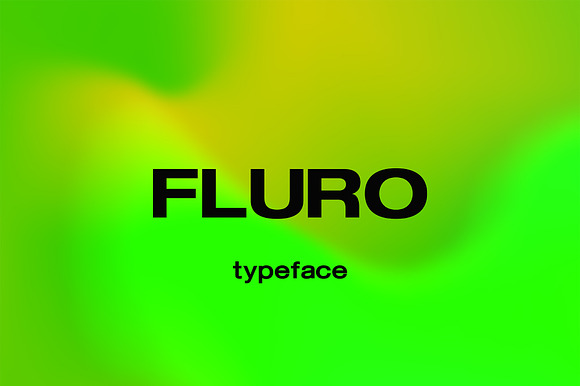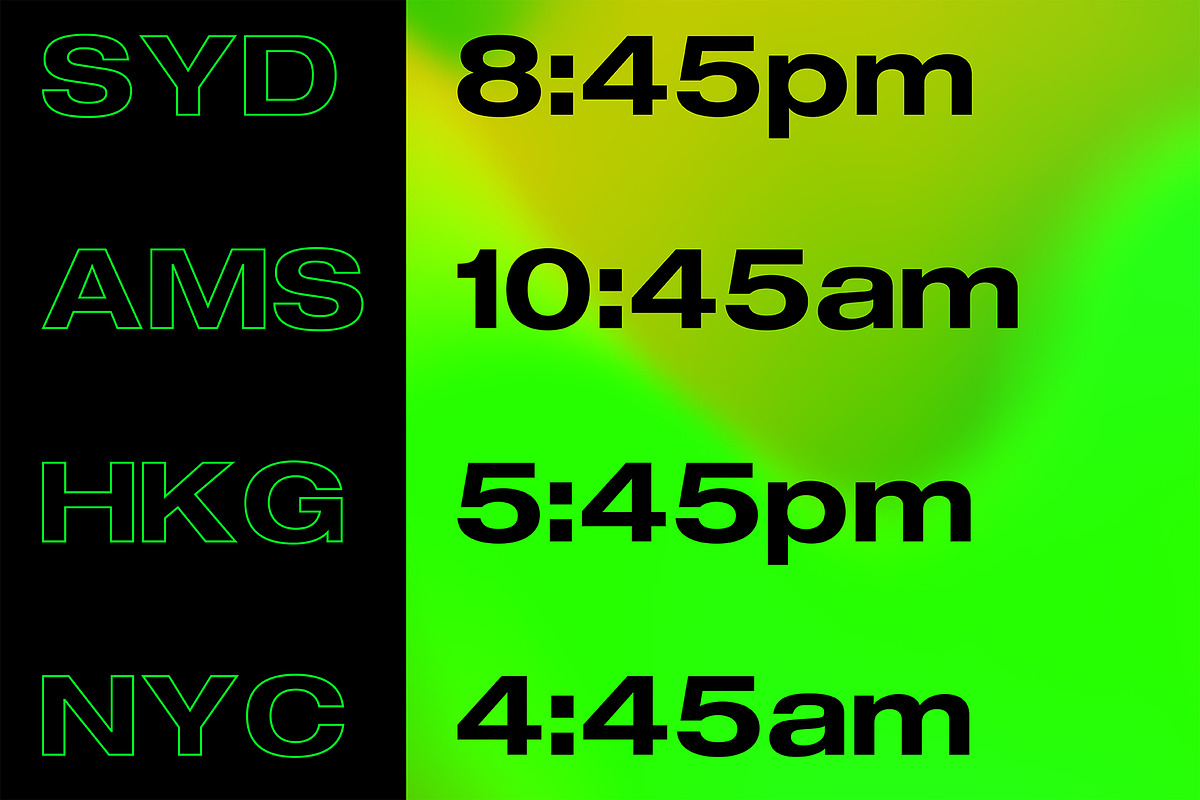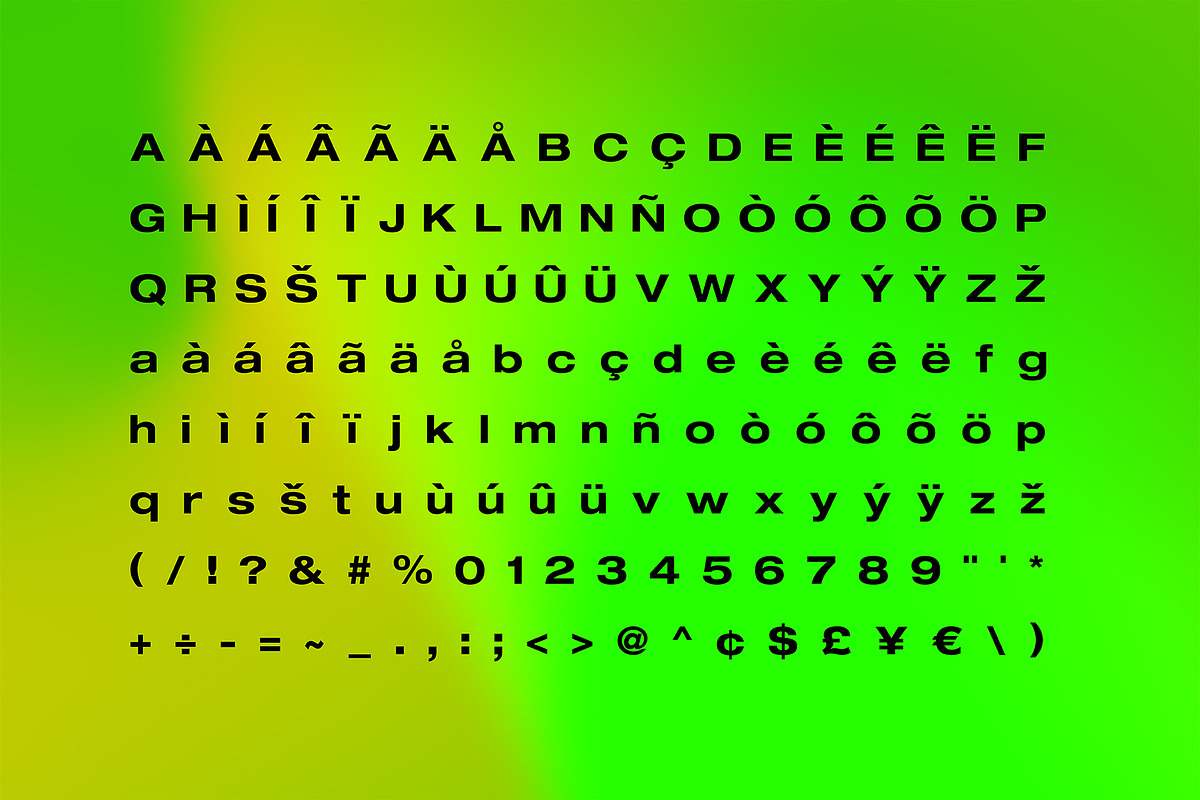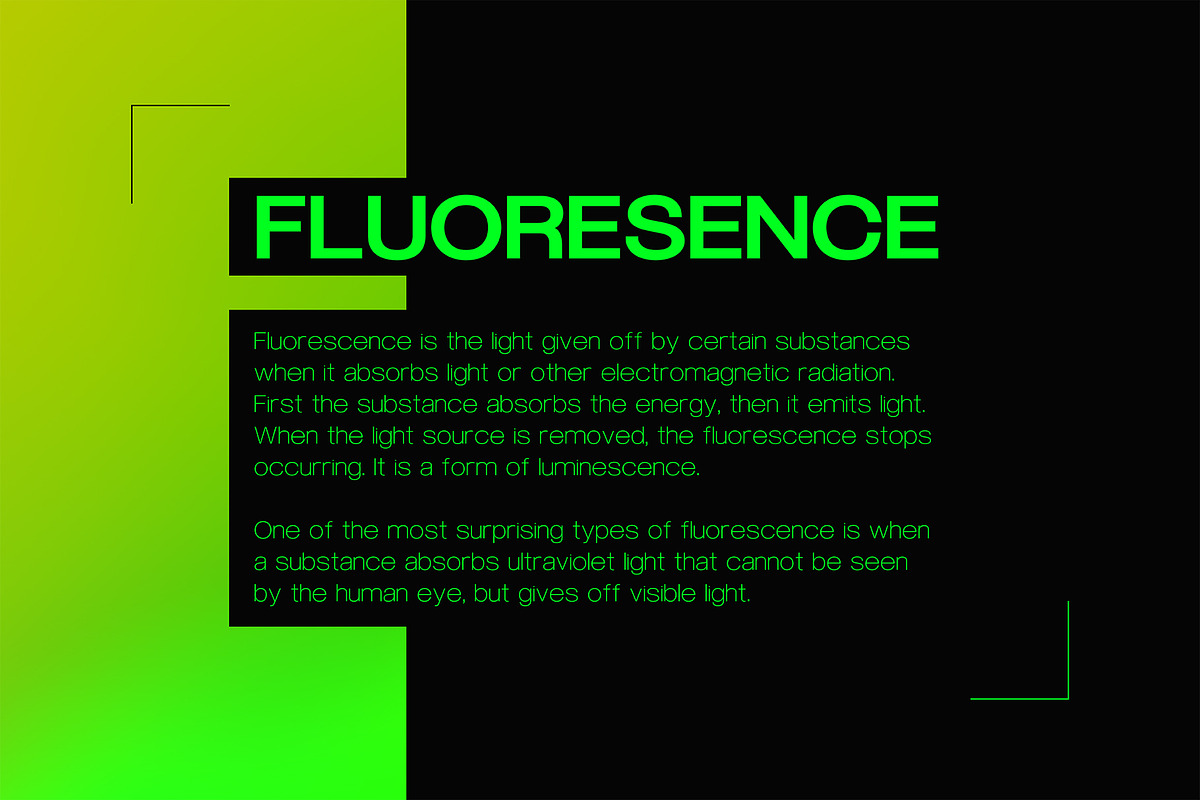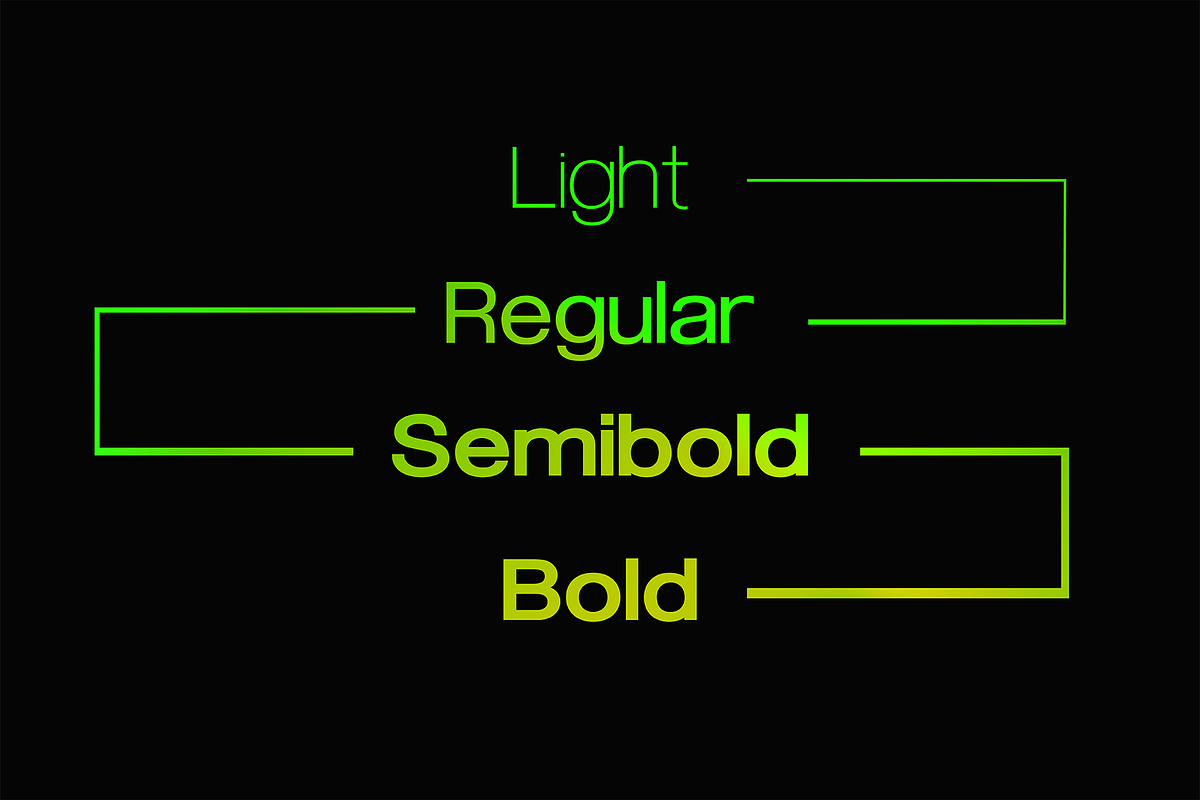
FLURO Typeface
FLURO typeface is Sans Serif hybrid, designed to look modern & minimal in any setting. It is offered in 4 weight styles - Light, Regular, Semibold, Bold + a bonus "Bold Outline" style.The Typeface also includes special characters, language supports and specialised Kerning
FLURO Typeface by KAZER STUDIO fits naturally into Branding, posters, packaging, typography.